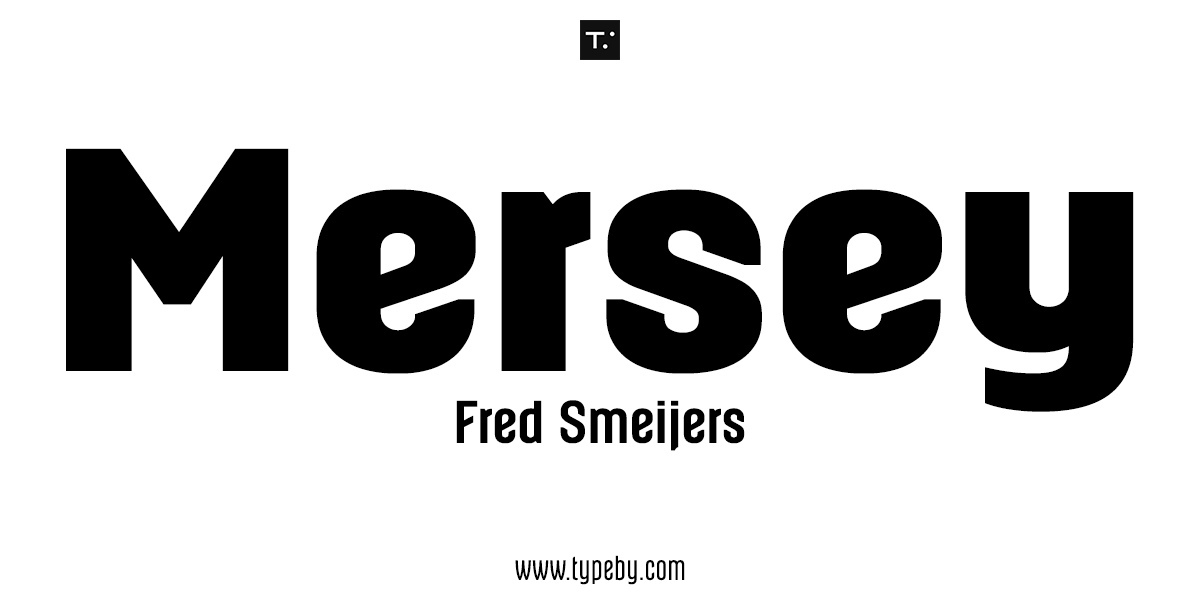
Mersey Font
Mersey Font is excellent for creative agency branding, modern website headers, contemporary logo designs, editorial magazine layouts, tech startup identities, social media graphics, advertising campaigns, and cutting-edge digital interfaces.
This exciting Mersey Font energizes design projects with its bold, contemporary aesthetic and innovative letterforms that command attention while maintaining exceptional readability. The font's progressive design philosophy perfectly captures the spirit of modern creativity, making it an ideal choice for forward-thinking brands and designers who want to make a powerful visual statement.
The Mersey Font family features comprehensive weight options including Thin, Light, Regular, Medium, Bold, Black, and their corresponding Italic styles, offering designers complete typographic flexibility for creating dynamic and visually compelling brand communications.
The dynamic personality of Mersey Font makes it particularly valuable for creative industries, technology companies, design agencies, and innovative startups that need to communicate cutting-edge thinking and progressive values. Its clean, geometric structure appeals to audiences who appreciate modern design aesthetics and forward-thinking approaches.
Professional designers appreciate how Mersey Font performs across different media platforms and applications. The font maintains visual consistency from small mobile screens to large-format displays, ensuring optimal legibility and impact regardless of the viewing context or device specifications.
The versatile nature of Mersey Font allows for seamless integration into comprehensive brand systems and multi-platform campaigns. Its balanced proportions and contemporary styling work effectively for both headline applications and extended reading, providing designers with a reliable foundation for diverse typographic hierarchies.
Modern brands choose Mersey Font to communicate innovation, reliability, and professional excellence. The typeface's clean lines and contemporary appeal help establish brand credibility while appealing to design-conscious consumers who value quality, creativity, and modern aesthetic sensibilities in their purchasing decisions.